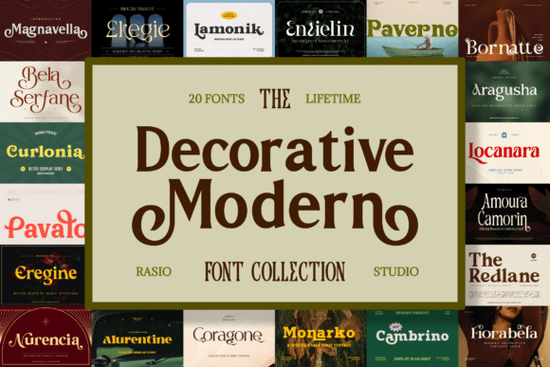
Finding the right typeface can completely change how a design feels. The Decorative Modern Font collection on Creative Fabrica brings together 20 display fonts that mix modern structure with ornamental details ideal for anyone who wants their typography to feel intentional and expressive rather than plain and generic.
What's Included in This Font Bundle?
This curated collection features 20 unique decorative display fonts, each designed with stylized letterforms, distinctive curves, and ornamental flourishes. The fonts balance modern elegance with expressive character, so they don't look overly traditional or overly trendy.
Inside the bundle, you'll find typefaces suited for a variety of design needs. Some examples from the collection include:
- Elora Maison Font A refined option with elegant details that works well for upscale branding and editorial layouts.
- Solguse Font Features unique curves and decorative strokes, great for creating standout headlines.
- Bring Vacation Font A more playful option that brings personality to travel-themed or lifestyle designs.
- Wedding Collection Font Designed with romantic, ornamental touches perfect for invitations and event stationery.
Each typeface in the bundle is crafted to stand on its own while also pairing well with the others, giving you a cohesive set to pull from.
How Do These Fonts Differ From Standard Typefaces?
Most default fonts whether on your computer or in design software are built for readability first. That's great for body text, but it means they often lack visual interest in display sizes. Decorative fonts solve this by adding character through:
- Unique letterforms that break away from standard shapes
- Ornamental details like swashes, ligatures, and flourishes
- Bold visual identity that makes headlines and logos more memorable
- Expressive curves that give words a distinct rhythm and mood
For example, a typeface like the one featured in Elora Maison's design style uses elegant serif details to feel refined, while fonts like Bring Vacation's playful lettering lean into a more casual, fun aesthetic. Having both in one collection means you can match the mood of your font to the specific project.
Where Can You Use Decorative Display Fonts?
These fonts work best at larger sizes think headlines, titles, logos, and featured text rather than paragraphs or fine print. Here are some practical use cases:
- Social media graphics Quotes, announcements, and promotional posts need type that grabs attention in a fast-scrolling feed.
- T-shirt and merchandise design Standout typography is one of the top-selling elements in print-on-demand.
- Wedding invitations and cards Ornamental fonts like those in the Wedding Collection font styles bring an elegant, handcrafted feel.
- Logo design A distinctive display font can serve as the foundation of a brand's visual identity.
- Book covers and album art Editorial and artistic projects benefit from typefaces that make an immediate impression.
Do These Fonts Pair Well With Simpler Typefaces?
Yes and that's actually the best way to use them. Decorative display fonts work beautifully when paired with clean, minimal body text. A common approach is to use one of the ornamental fonts from this collection for headlines, then pair it with a simple sans-serif or traditional serif for supporting copy.
You can also mix and match fonts within the bundle itself. For instance, combining a bolder decorative style like Solguse with its distinct character shapes alongside a lighter, more refined option creates natural visual hierarchy without needing extra design elements.